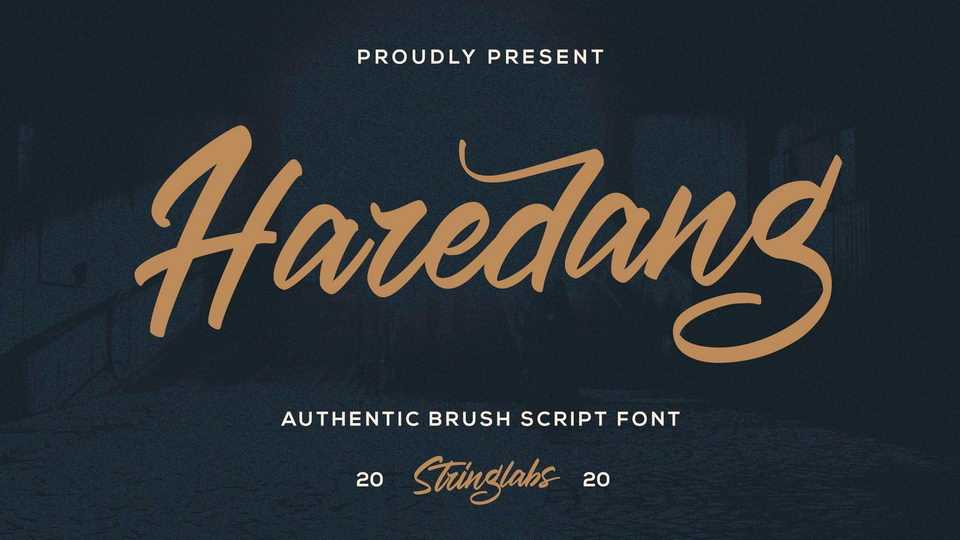
Download Haredang font, a natural flowing handwritten script, described by an elegant touch, perfect for your favorite projects. With its incredibly distinct and timeless style Haredang is perfect to create spectacular designs.